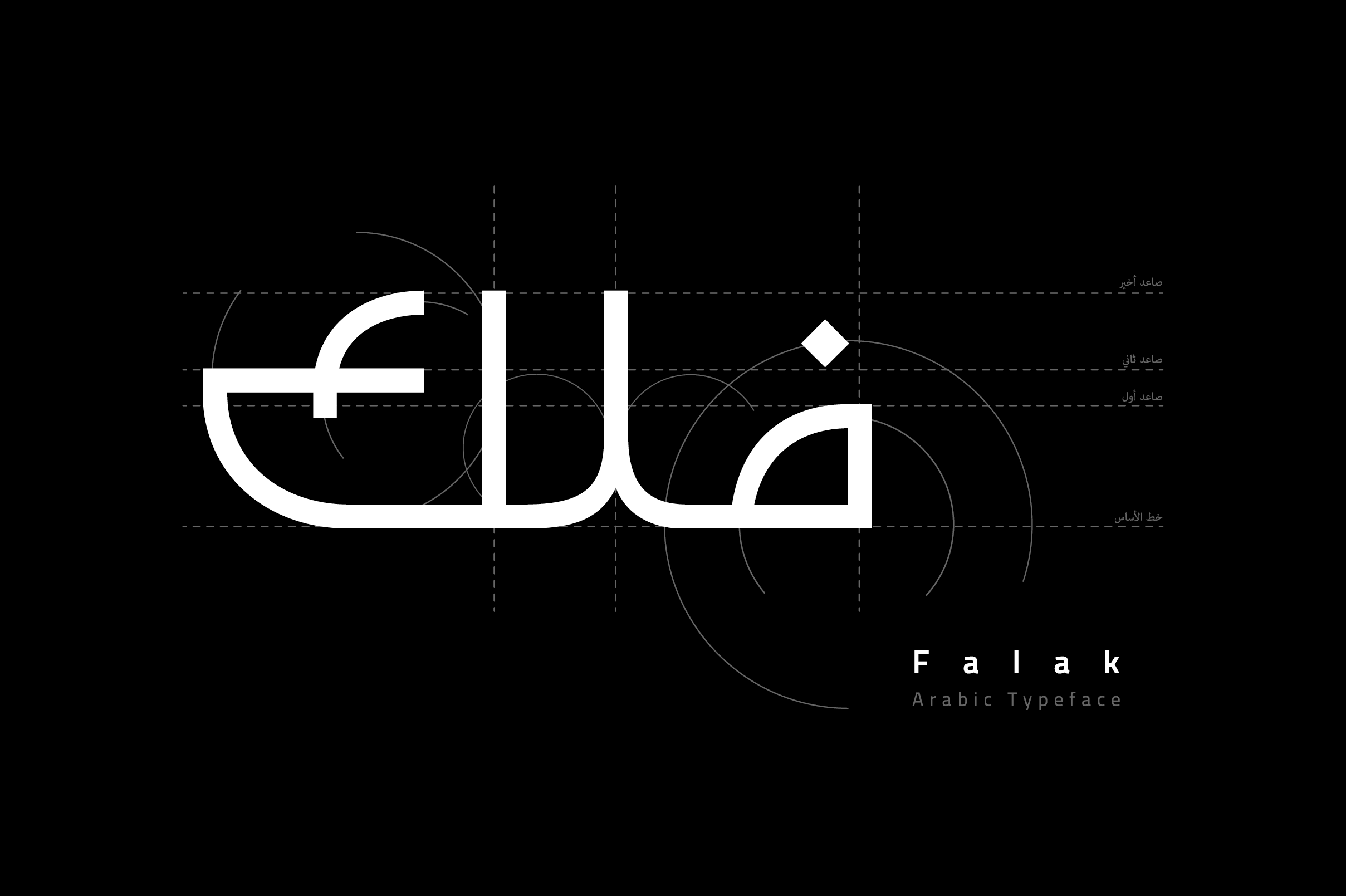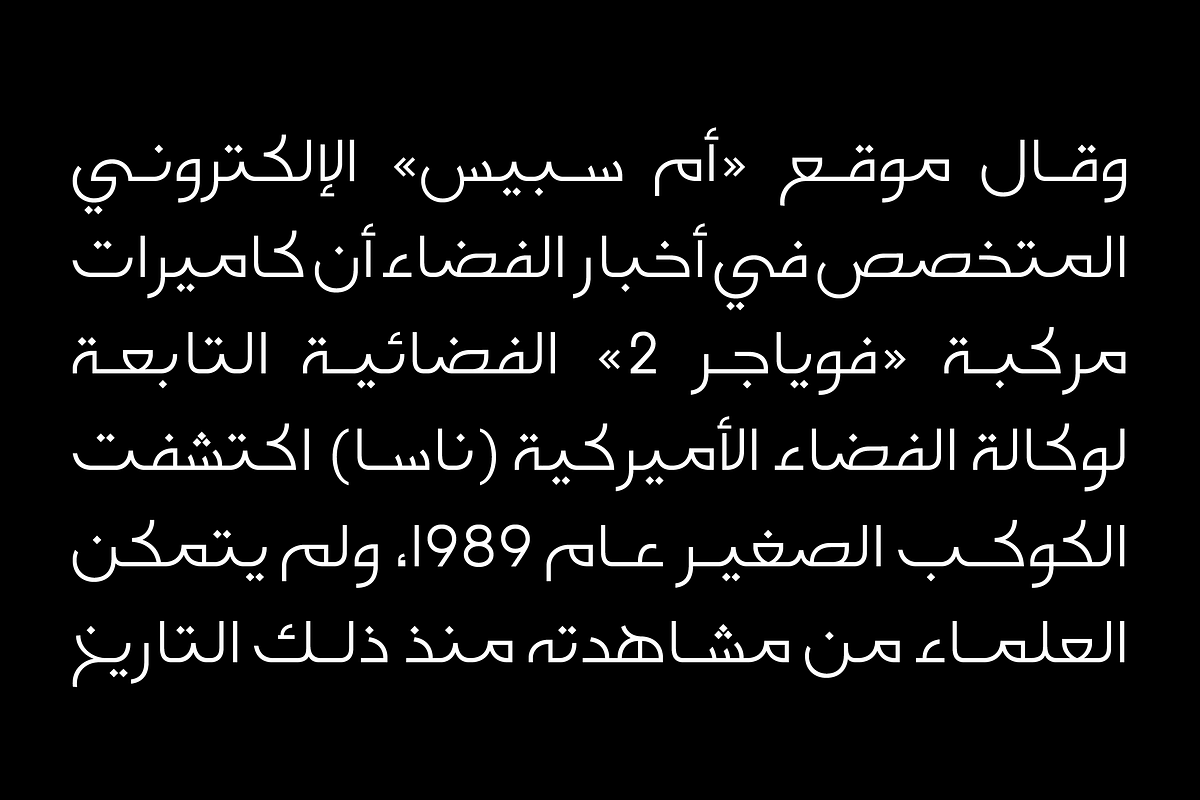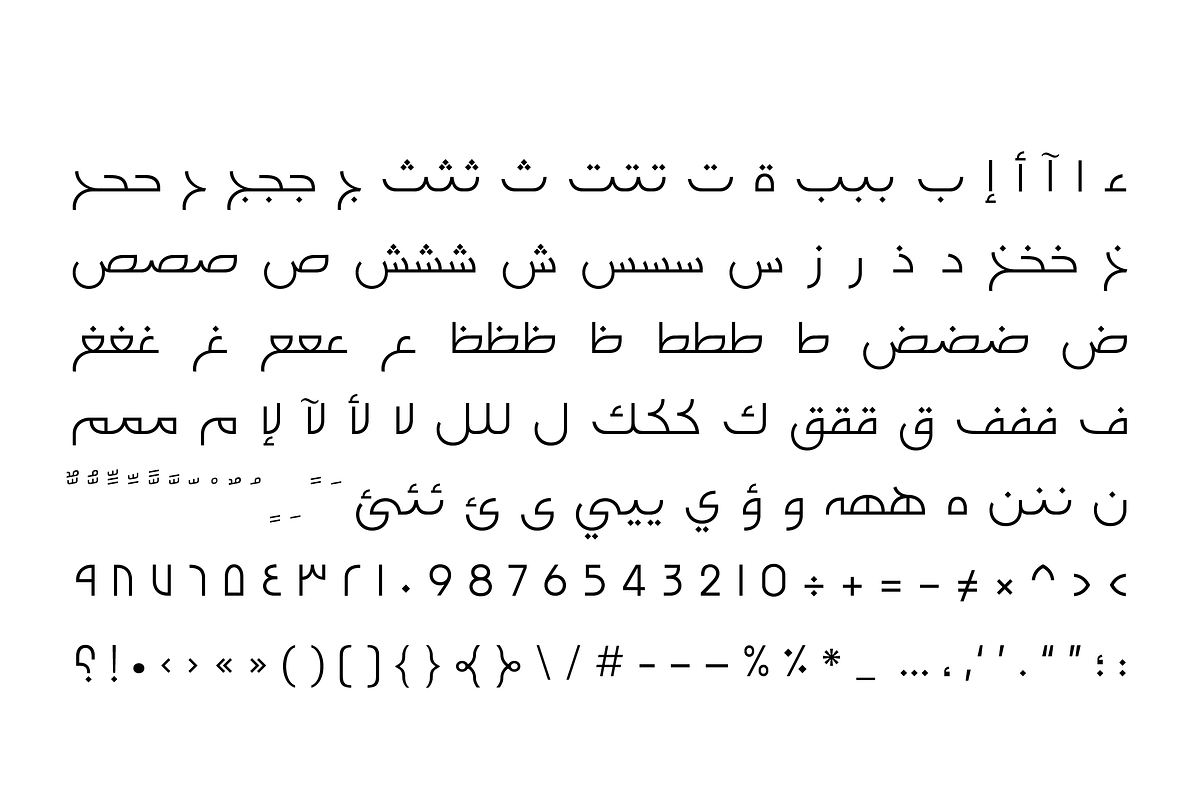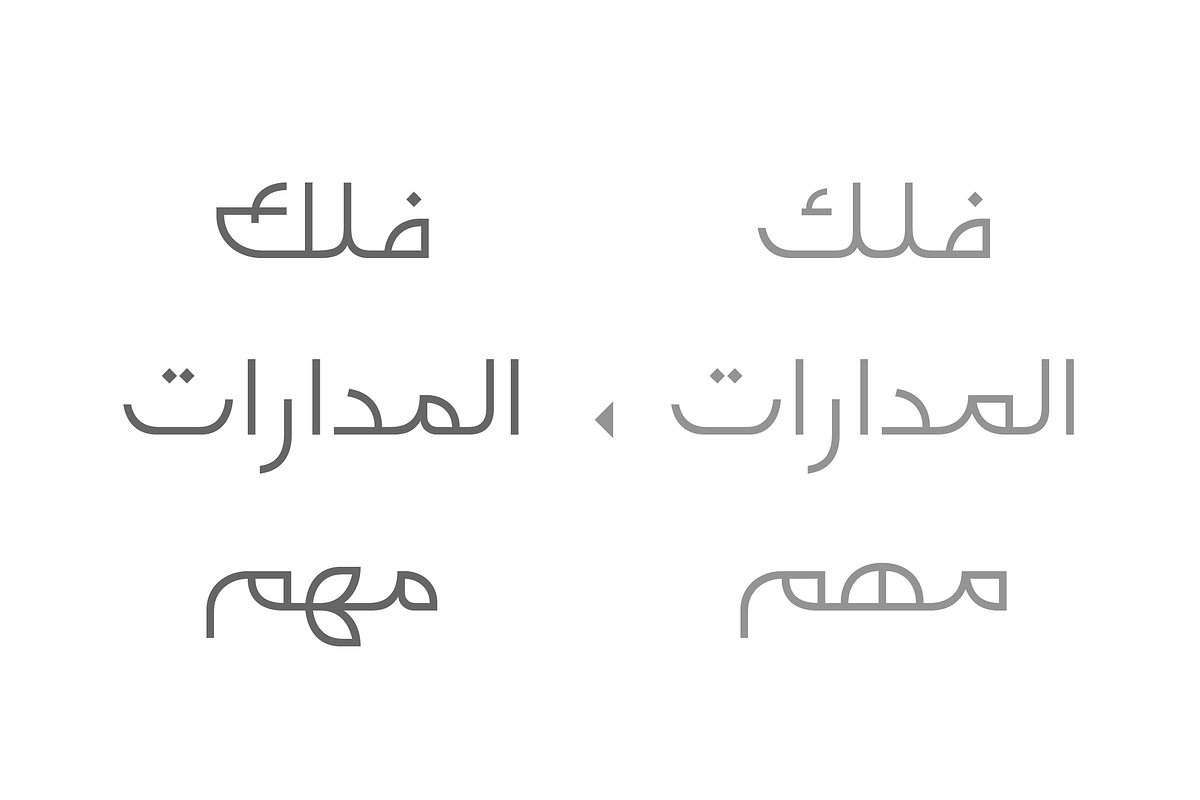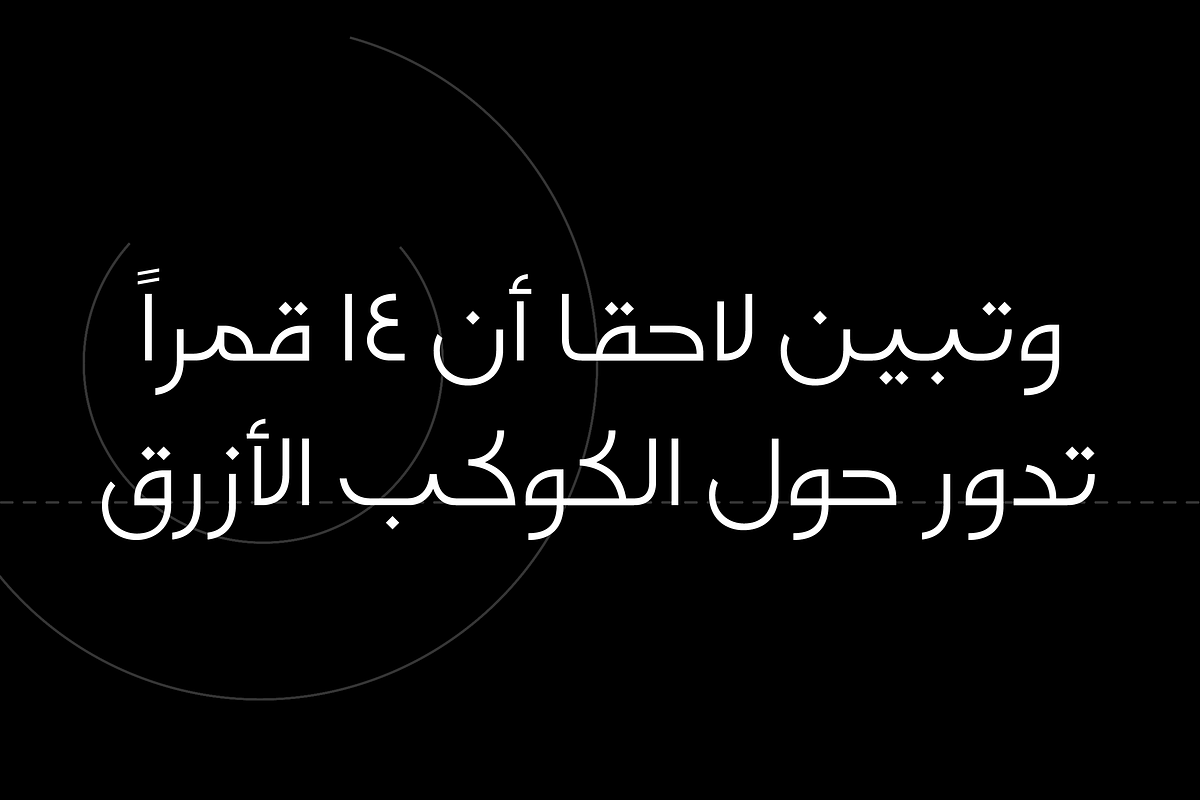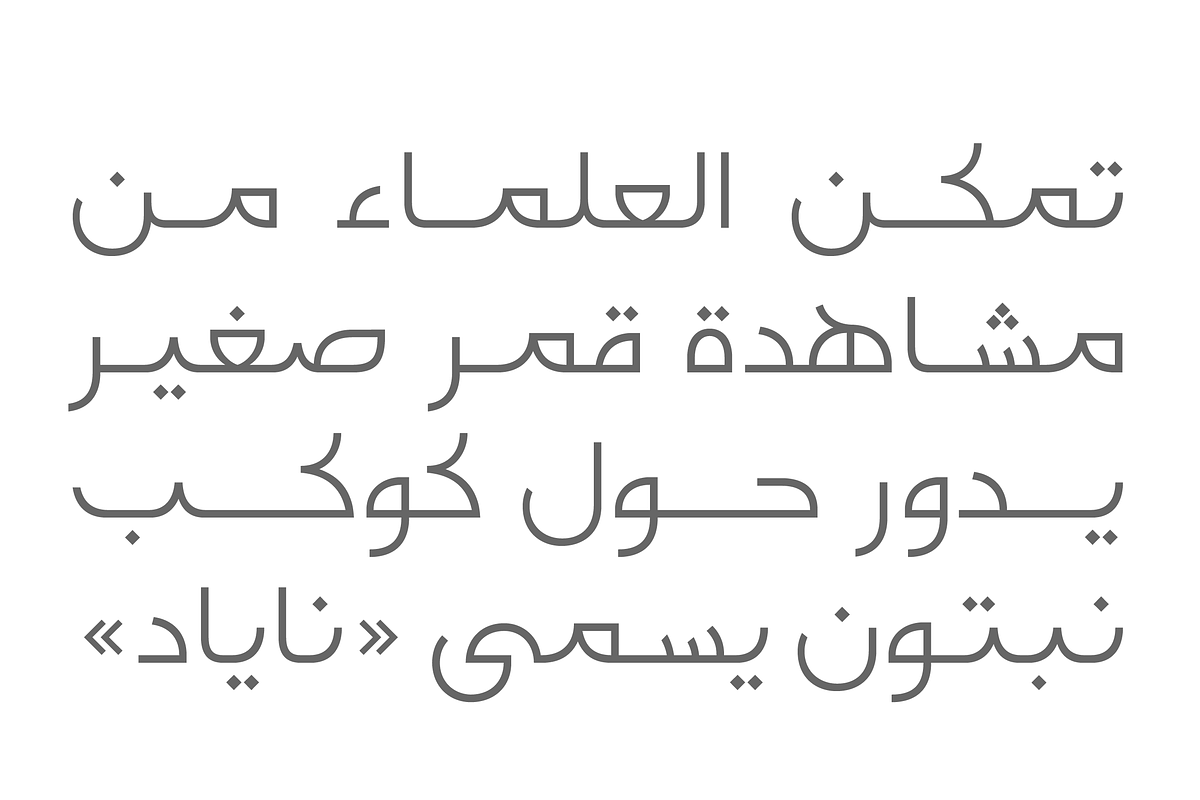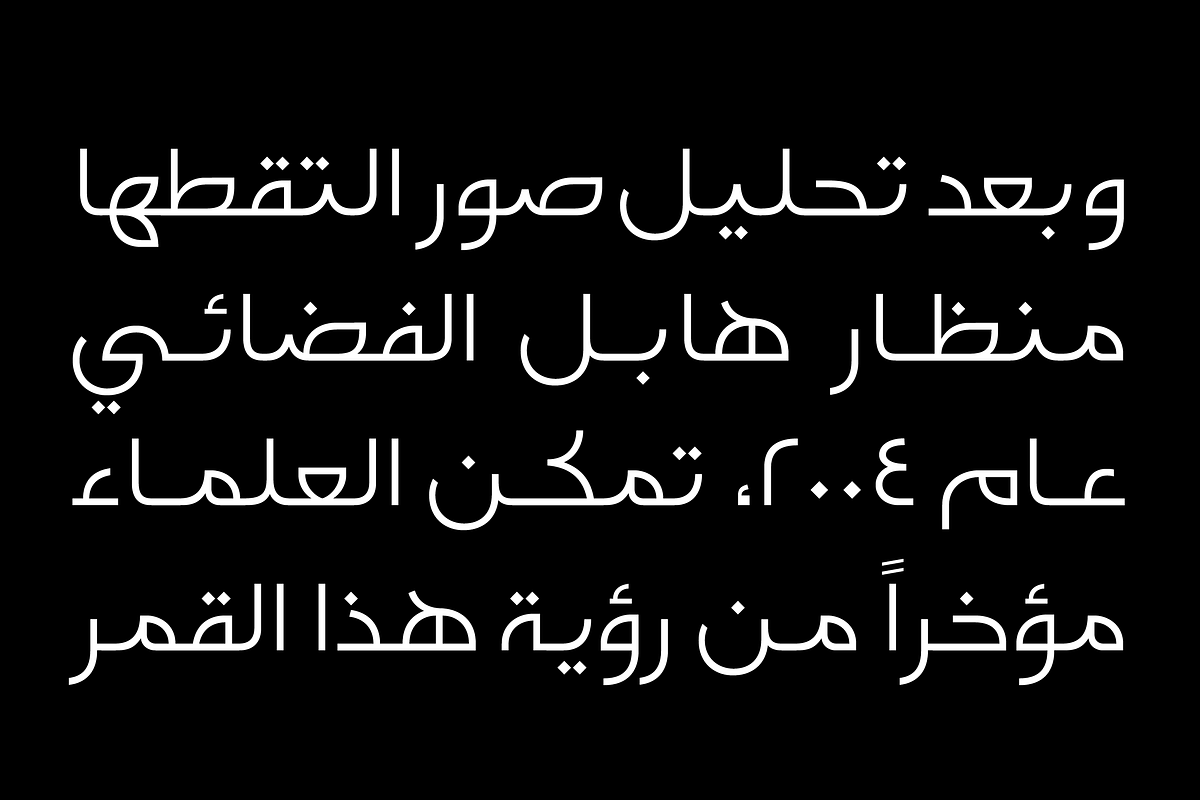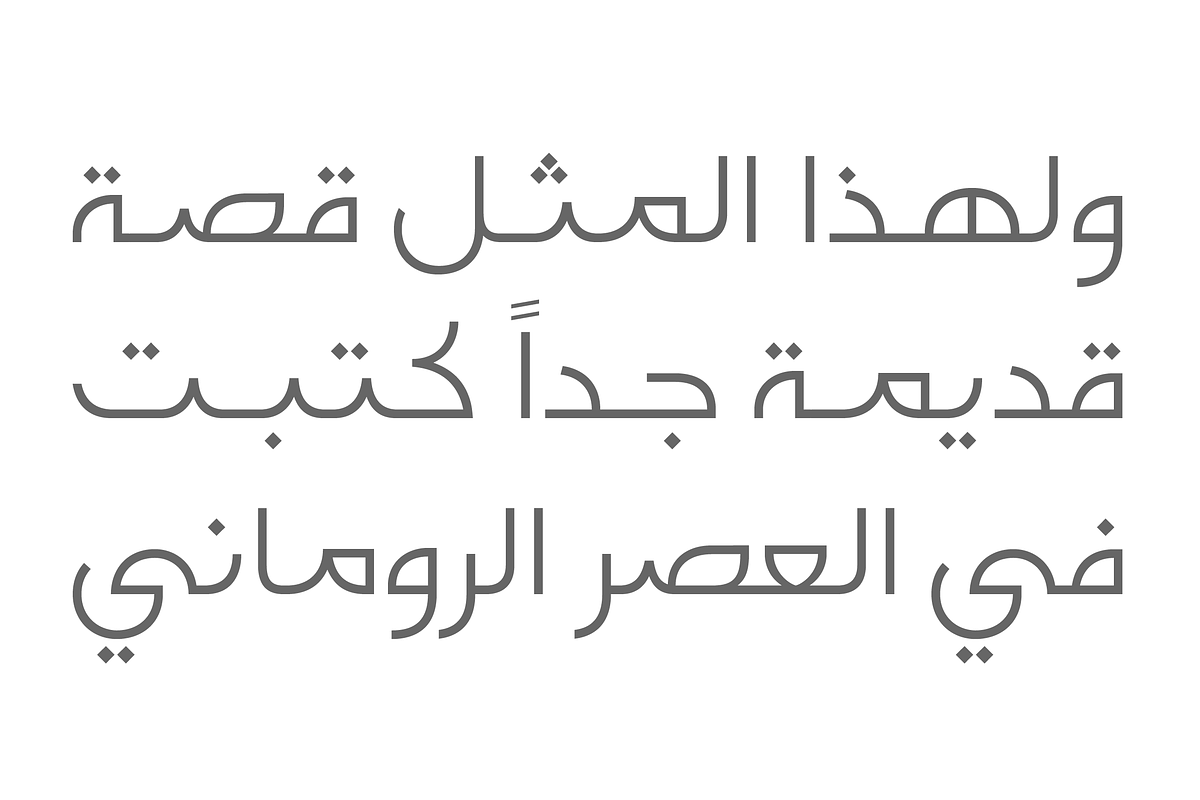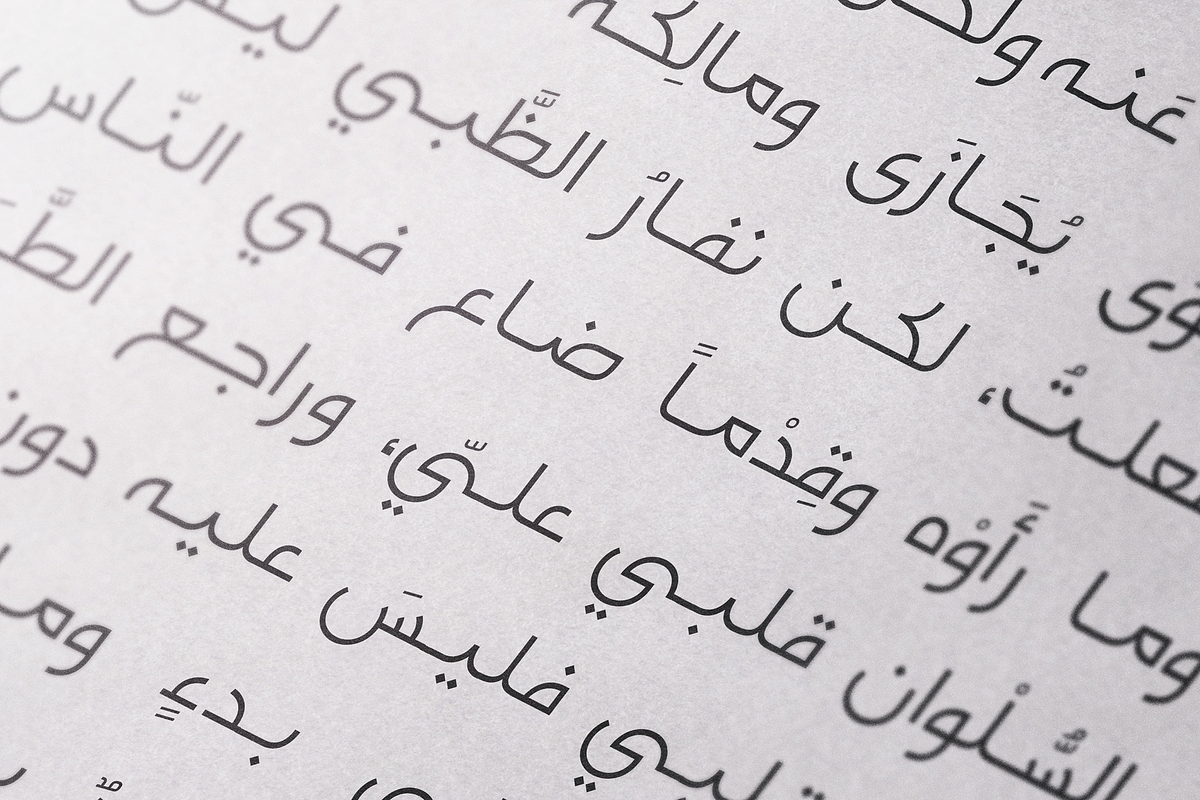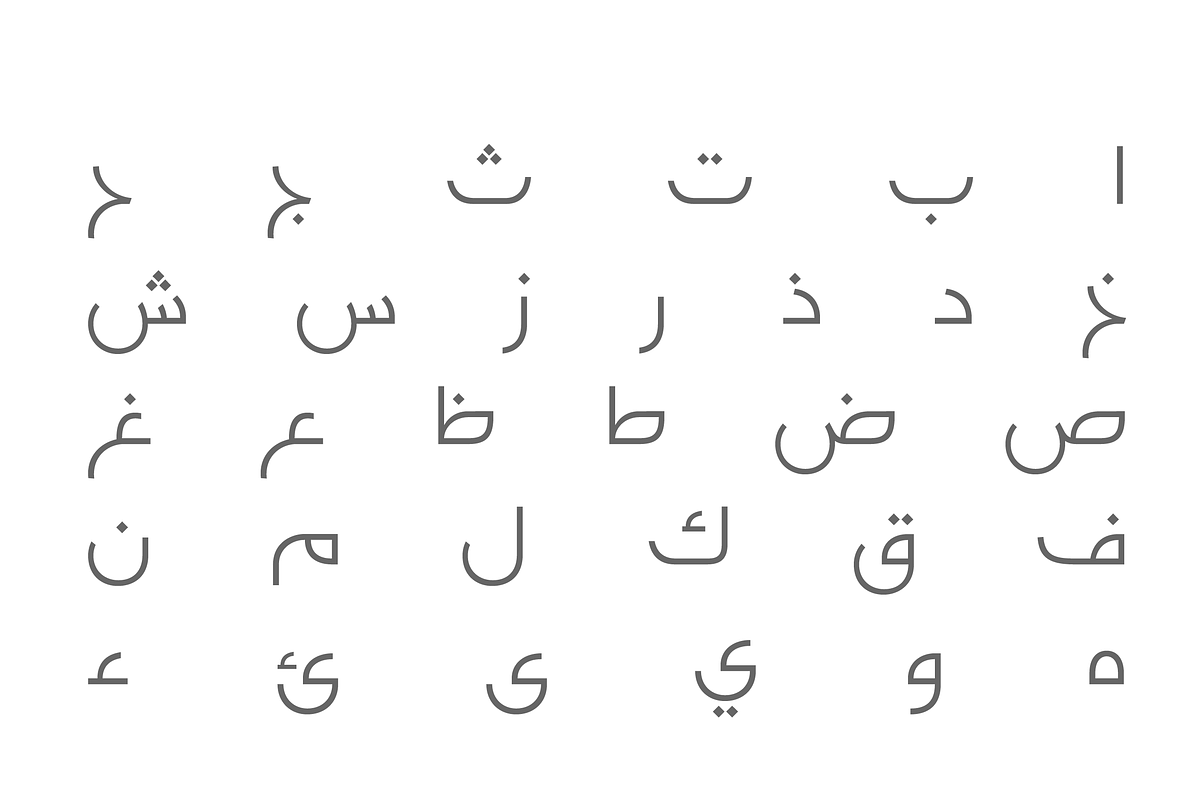
Falak - Arabic Font
Falak (the Arabic word for 'Orbit') is an Arabic display font featuring rounded letters, inspired by themes of astronomy and natural science. It includes a stylistic set and is suitable for a variety of creative projects, such as web design, print media, and mobile applications.